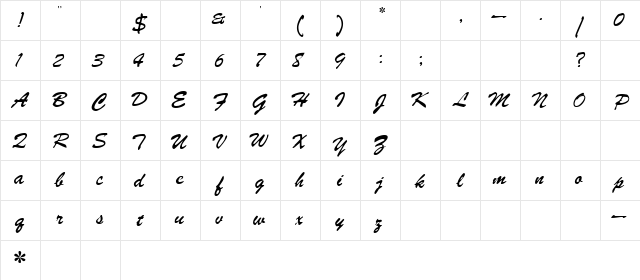
Bryn Mawr Regular
Design Context for Bryn Mawr
Bryn Mawr is a composed and adaptable typeface that performs quietly and consistently across a wide range of design contexts.
Pro Tip: Use Bryn Mawr in both headline and body roles to test its range before committing to a single application.